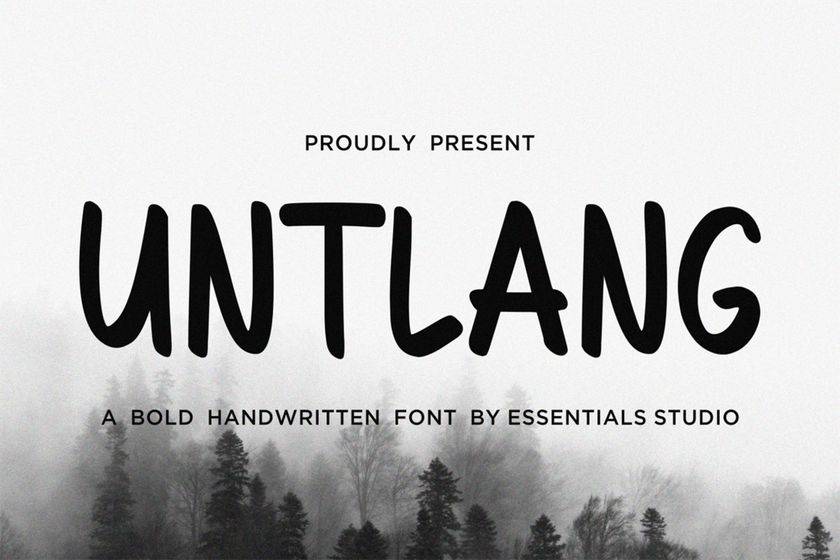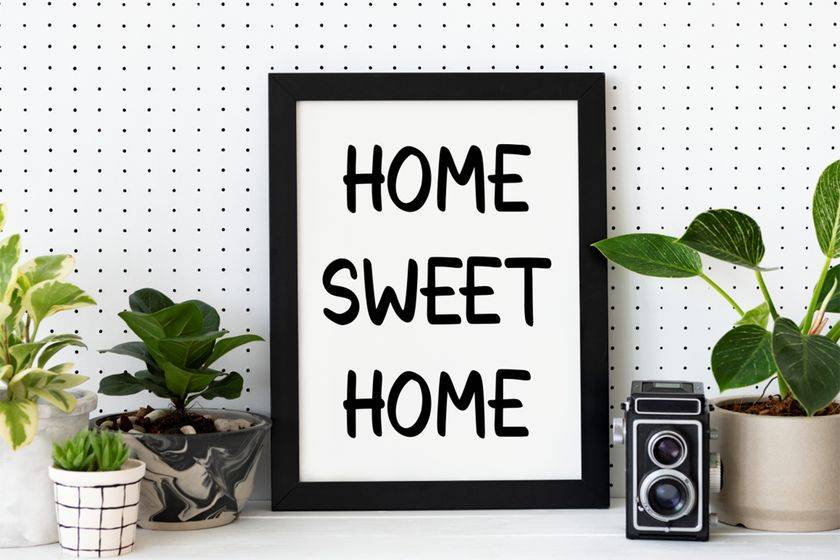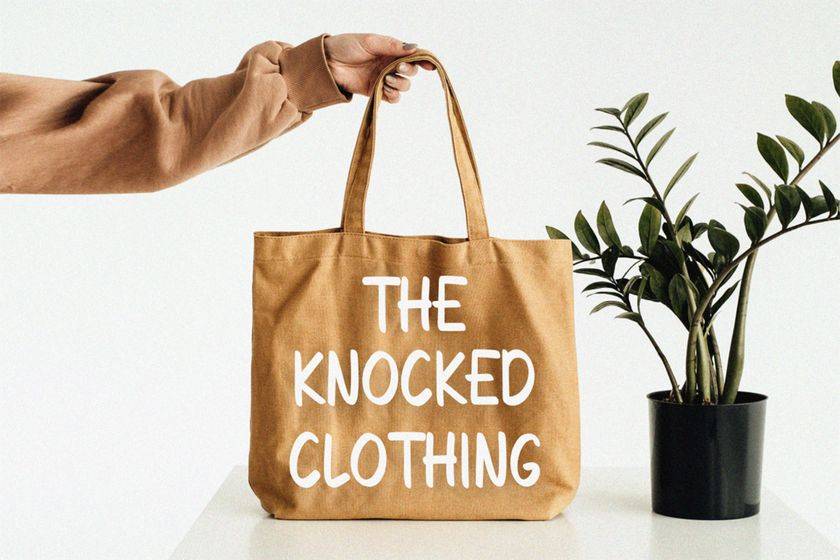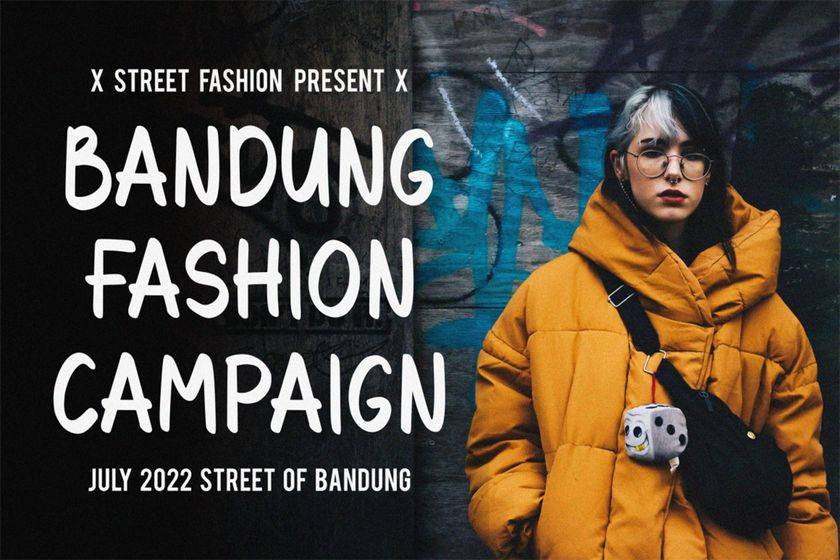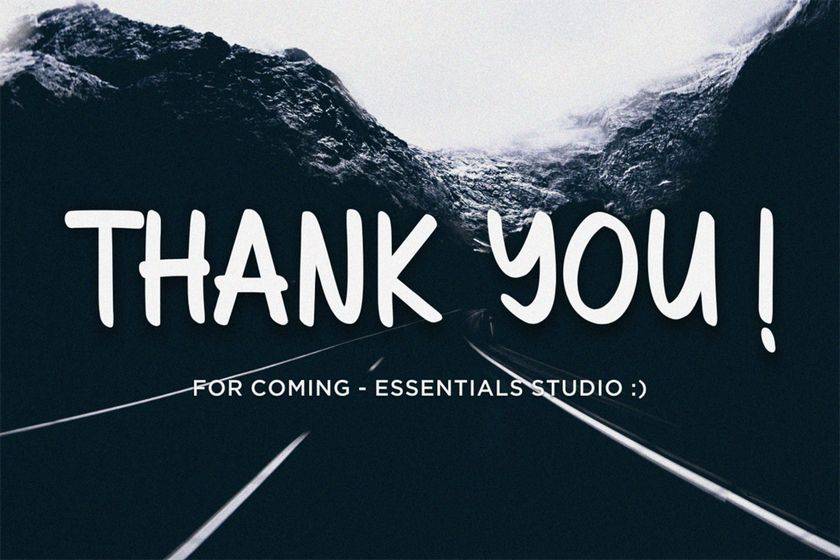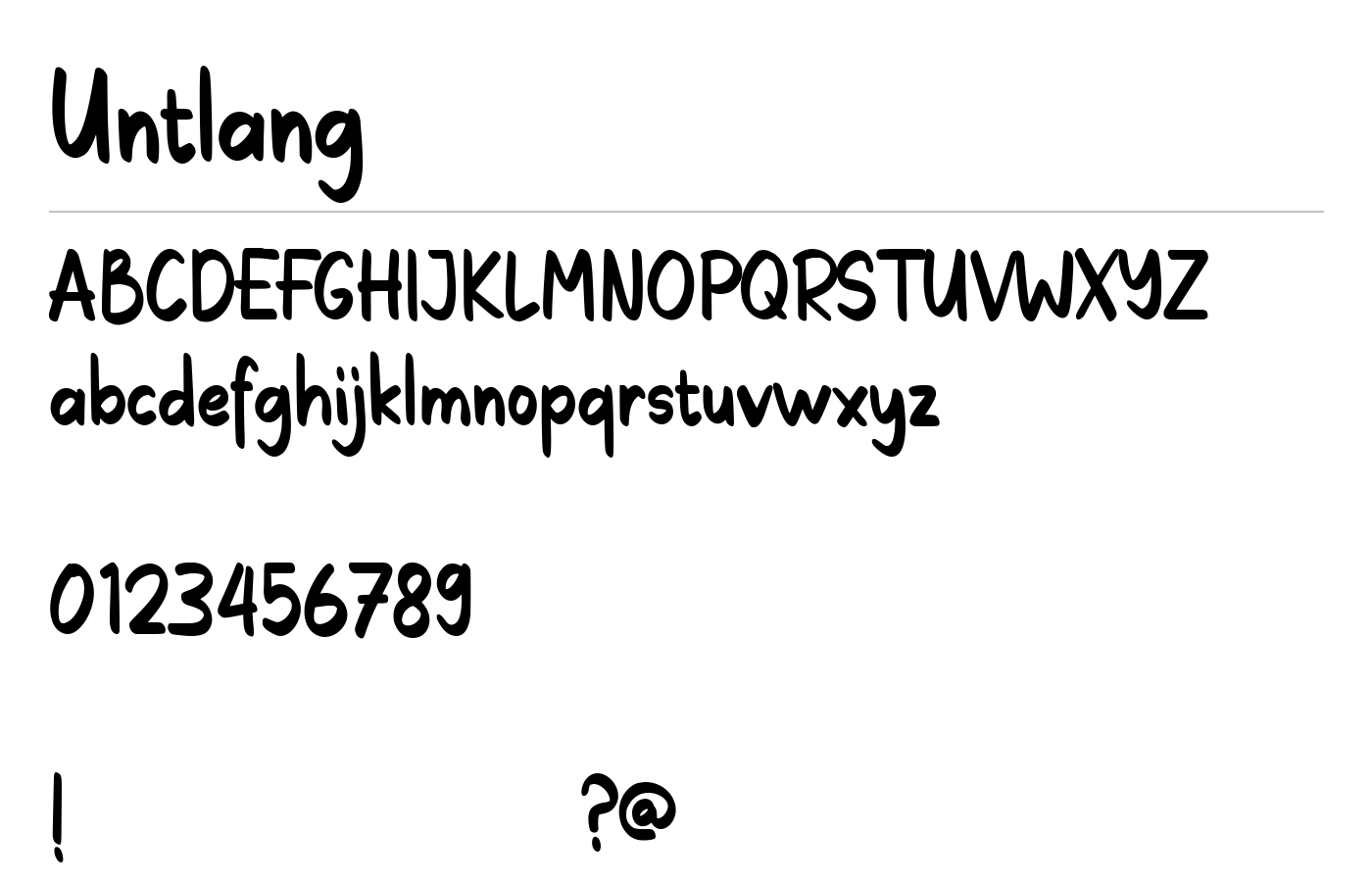
Untlang is a casual, playful handwritten font with a friendly and approachable feel. Its irregular strokes and simple, rounded letterforms give it an informal, hand-drawn style perfect for creative projects, children’s materials, and fun branding. This font works well in headlines, posters, and anywhere a lively, personal touch is needed.
Untlang Font
About Untlang Font
| Font family | Untlang Font |
| Release date | 2022-08-22 |
| Designer | Sulthan Mada Maulana Tsani |